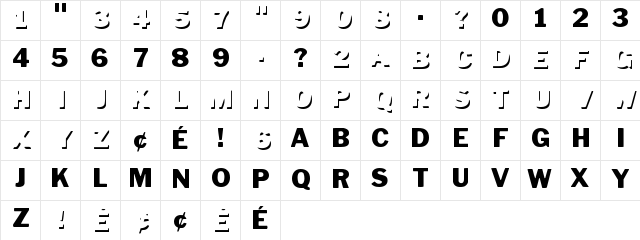
Down Town Auto Regular
Design Context for Down Town Auto Typeface
Down Town Auto offers clean, dependable letterforms without strong stylistic allegiance, making it a practical choice for designers who need flexibility.